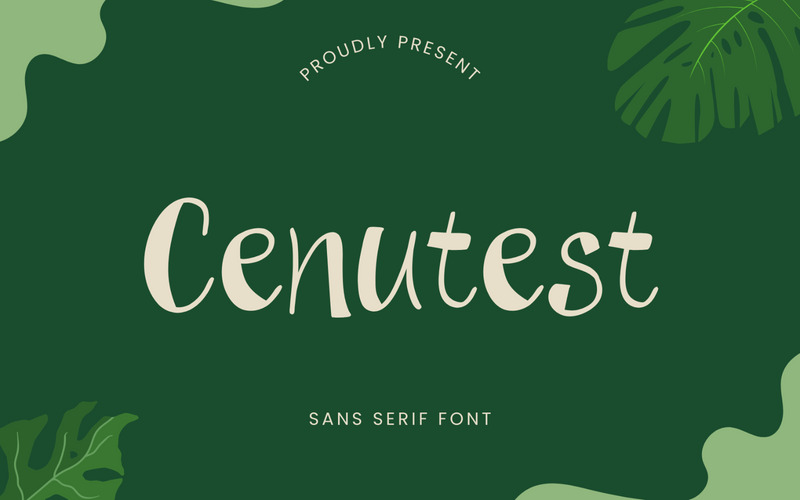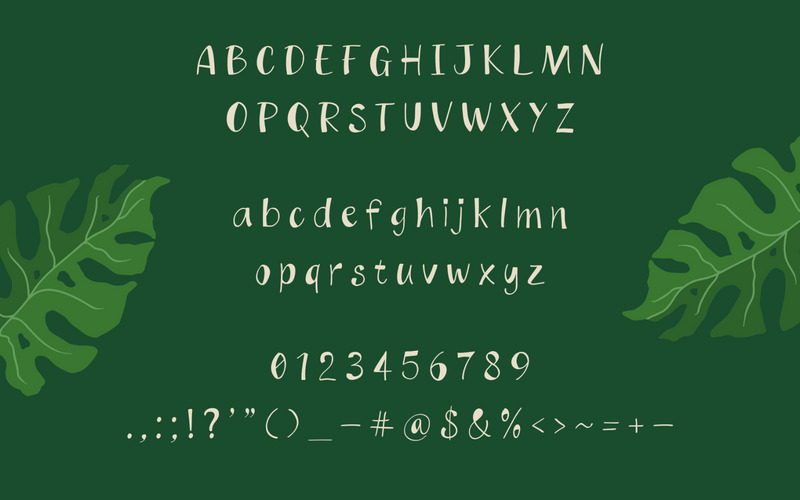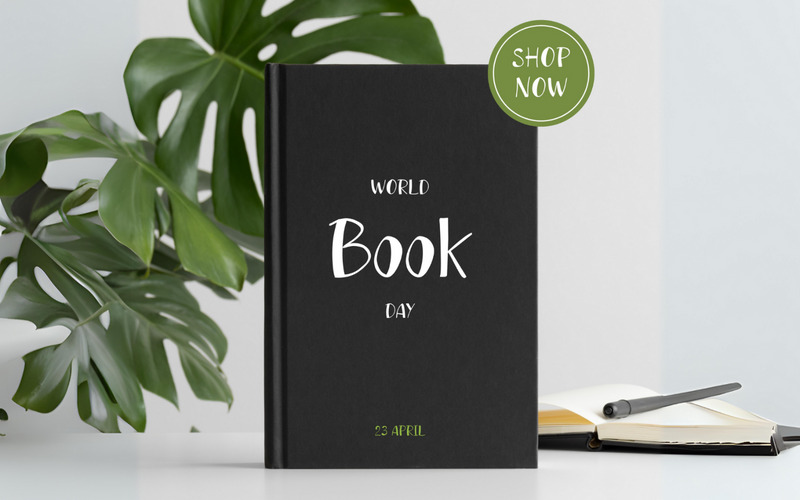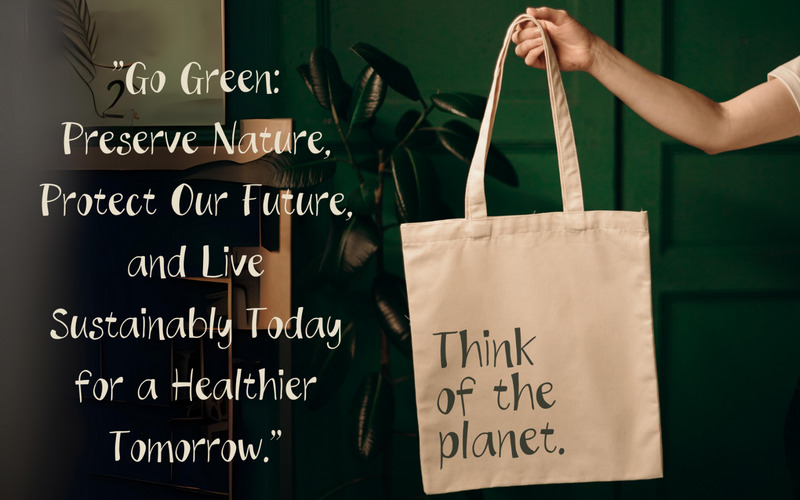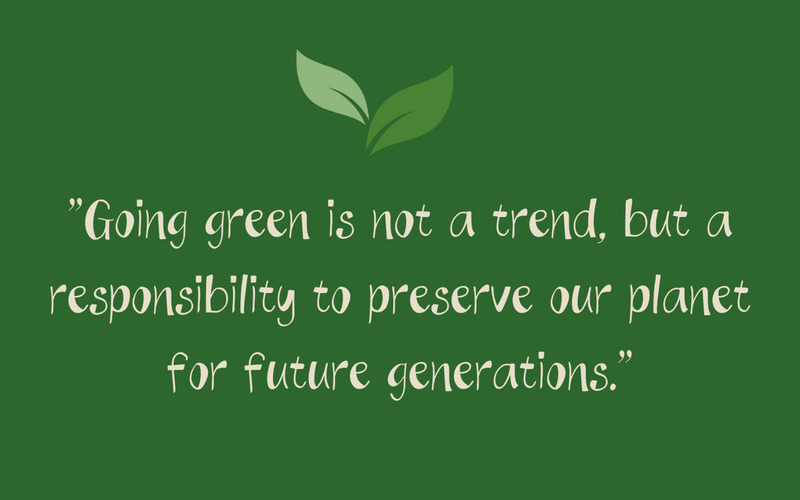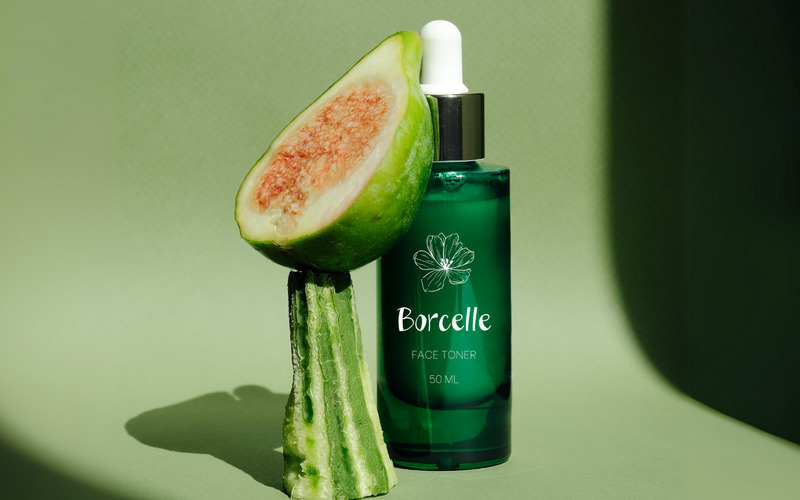
Cenutest - Beautiful Display Font
Introducing Cenutest - Display Font Cenutest is a Lovely Handwritten Font made with a unique and authentic style. Cenutest is perfect for those of you lovers of fonts with a casual and natural style.
This Font can be used for any variety of purposes, such as: Photography, Wedding Ceremony, Invitation, Packaging, Logo Type, Branding Design, Fashion and also can be used for Business purpose.
This Font Template contains Modern, Elegant, Creative, Professional and Unique Concept.